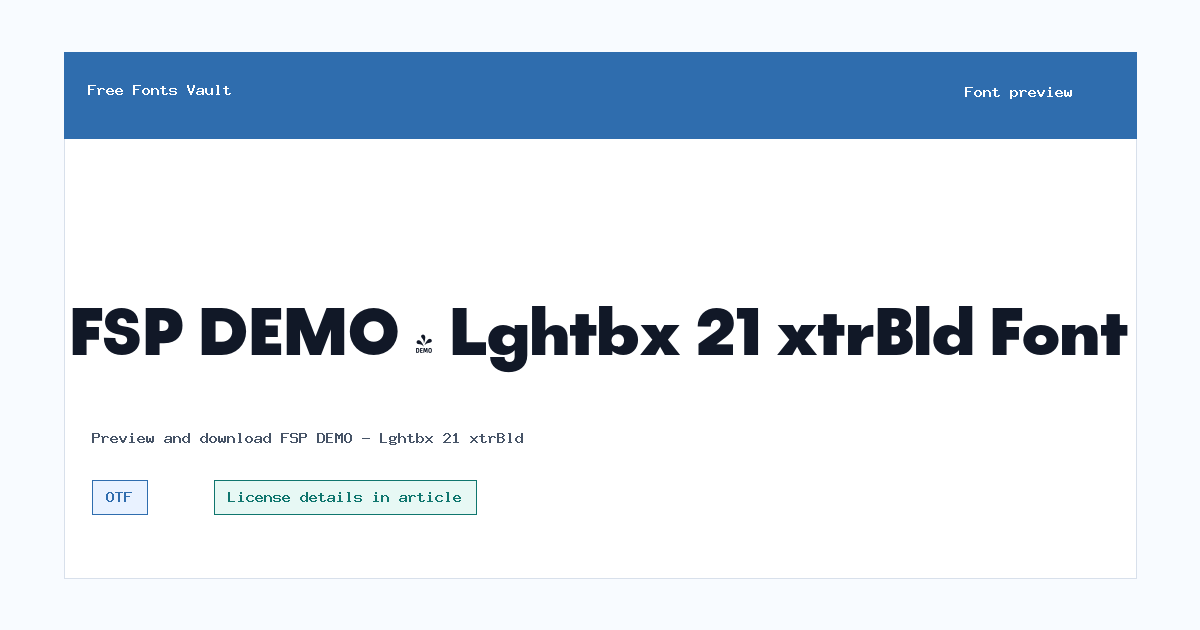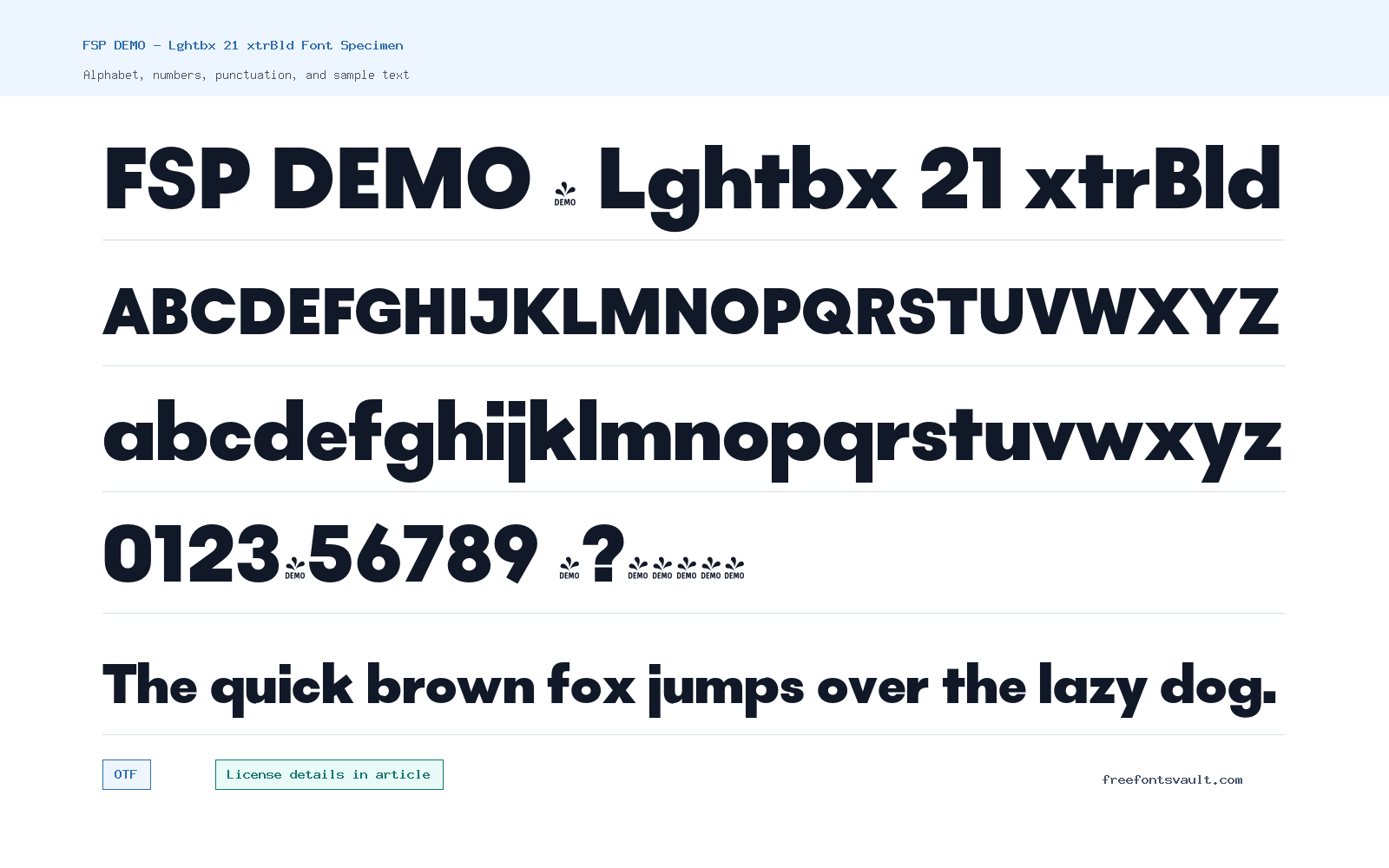
FSP DEMO - Lghtbx 21 xtrBld
FSP DEMO – Lghtbx 21 xtrBld font.
FSP DEMO – Lghtbx 21 xtrBld is a Protimient font credited to Ben Jones. It comes as an OTF file and is best approached as a display choice for short, high-impact text.
About FSP DEMO – Lghtbx 21 xtrBld
The name FSP DEMO – Lghtbx 21 xtrBld points to a bold display style rather than a quiet reading face. Because only one OTF file is listed, plan to use it as a single-style font rather than a full family with matching weights and italics. Test it in the preview with the exact words you want to use, especially if your design depends on tight spacing, large headlines, or short labels.
This font is a practical option to try for poster titles, social graphics, cover text, thumbnails, stickers, and other places where a strong wordmark-like line matters more than long-form reading comfort. Keep body copy in a simpler companion typeface and let FSP DEMO – Lghtbx 21 xtrBld handle the main phrase. For best results, preview it at both large and small sizes, check punctuation and numbers, and avoid using it for dense paragraphs unless the preview remains easy to read.
- Regular variant with normal style settings
- Large headlines, posters, banners, and social media title text
- Short branding-style phrases, labels, stickers, and thumbnail text
Try the preview with uppercase words, mixed case, numbers, and punctuation before downloading. Pair it with a clean sans serif or readable serif for body text, and leave enough spacing around the headline so the heavier style does not feel crowded. Use short line lengths and strong contrast. If the extra-bold style dominates the page, reduce the amount of text instead of forcing it into smaller sizes.
Is this a good font for paragraphs?
It is better suited to short display text. For paragraphs, pair it with a more readable text font and keep this font for headings or accent words.